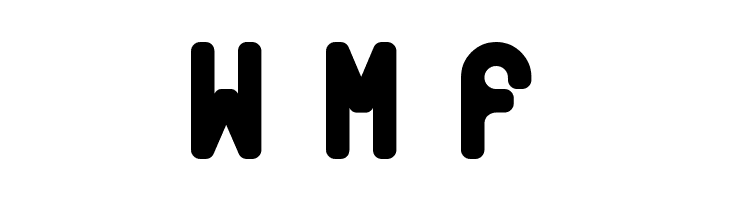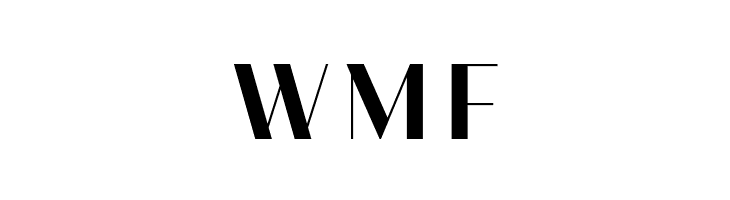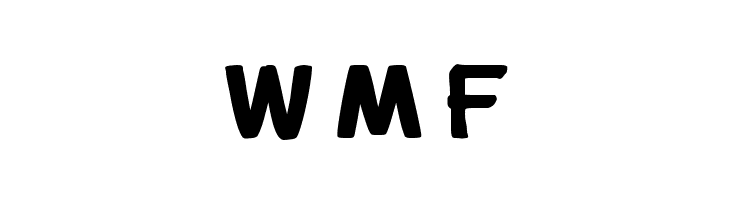
• BSRU BANSOMDEJ Bold Oblique
A bold, oblique font with a modern and dynamic style.
• BStyle-Bold
A bold, condensed font with high contrast and elongated letterforms.
• BStyle-Bold
A bold, condensed font with tall, narrow characters and a modern aesthetic.
• BT Amibus Trial Bold
A bold serif font with strong strokes and tight character spacing, ideal for impactful headlines.
• BT Amibus Trial Bold Italic
A bold, italic serif font with strong, dynamic strokes and pronounced serifs.
• BT Suave Bold
A bold, modern font with high contrast and elegant curves.
• Bu Marker SC Bold
• Bubbble Gum Bold
A playful, rounded font with smooth curves and uniform stroke width.
• Bubbble Gum Italic Bold
A playful, bold, and italicized font with rounded edges and a lively feel.
• Bubble Club Bold